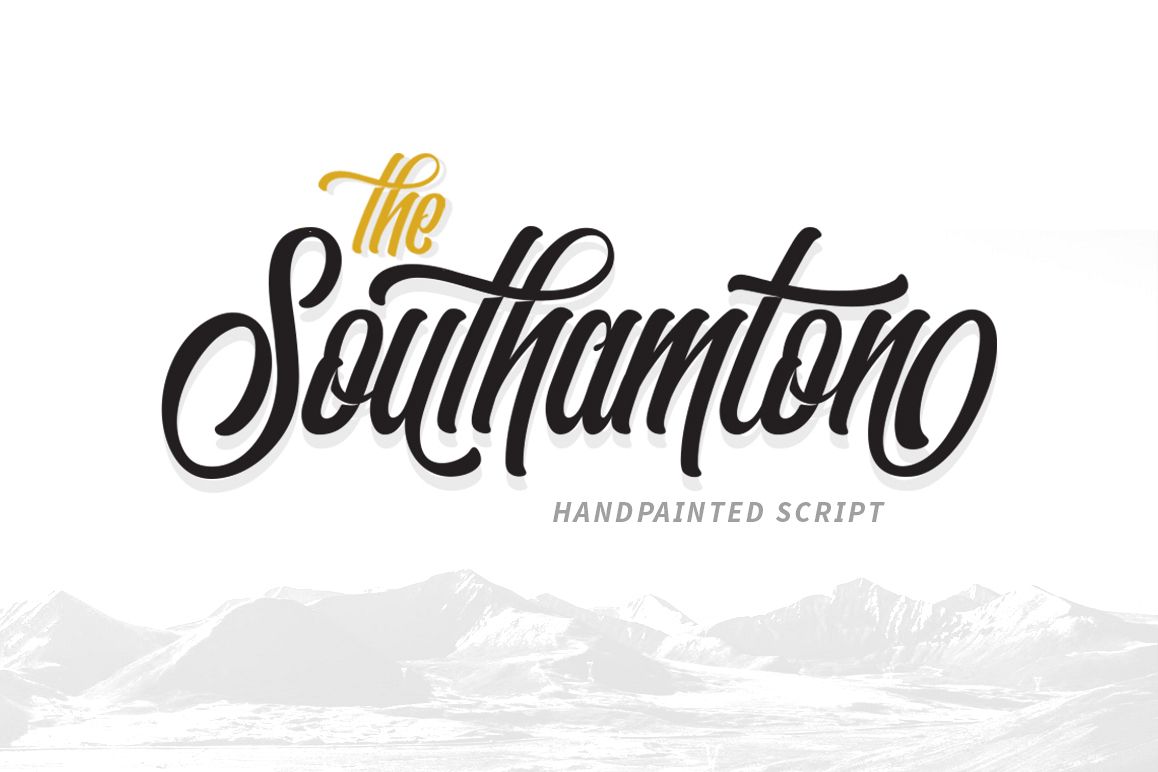
Southamton is a handpainted typeface with a customible style, it’s perfect for latterhead, vintage apparel design, headline, logotype, poster, card, and etc.
Features- Uppercase
- Numerals & Punctuations
- Stylistic Styles
- Discreationary Ligatures